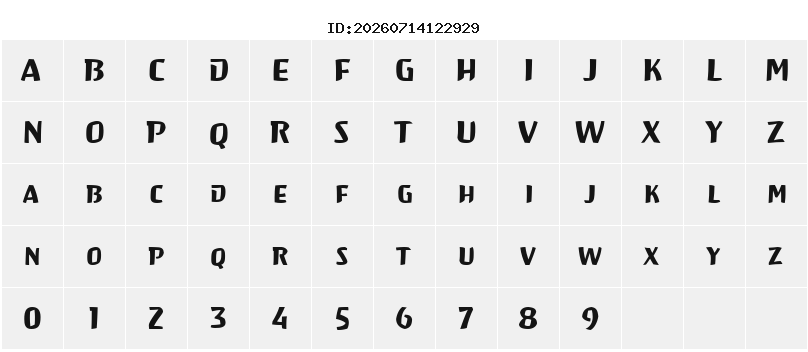
• Font Name: Hayate
• Full Font Name: Hayate
• Designer: Ray Larabie
• Manufacturer: Ray Larabie
About Hayate.ttf
Hayate.ttf is a modern, elegant sans-serif font designed for ultimate readability and visual harmony. Perfect for branding, headlines, web design, and print materials.